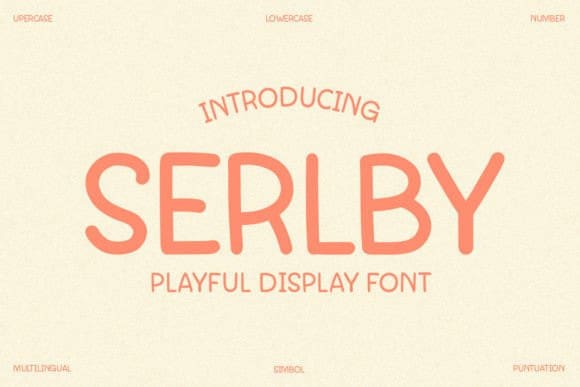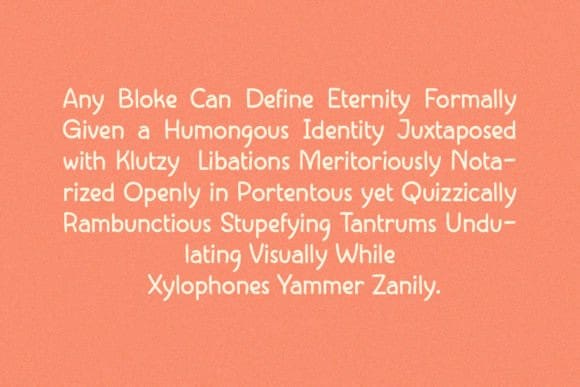
Serlby Playful Font
Serlby Playful Font a playful and cute display font with versatile letters that look great in all caps or used regularly in sentence cases.
Perfect for birthday invitations, stationery, kids’ t-shirt designs, labels, logos, branding, packaging, calendars, and more project about kids!